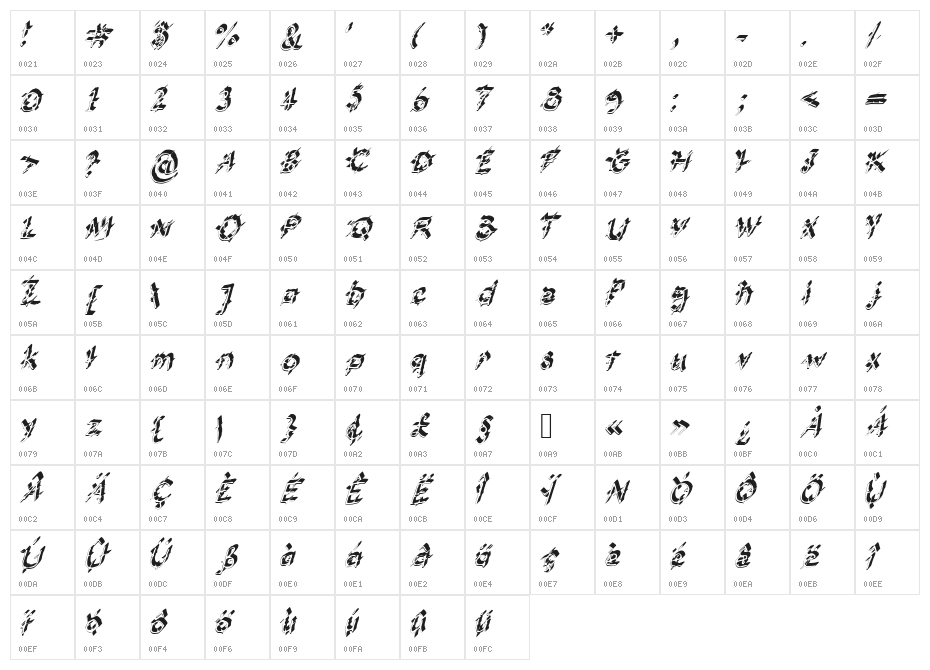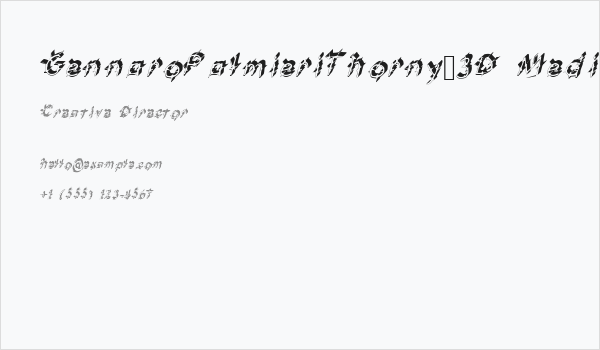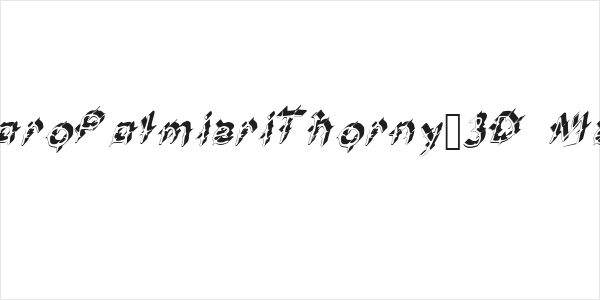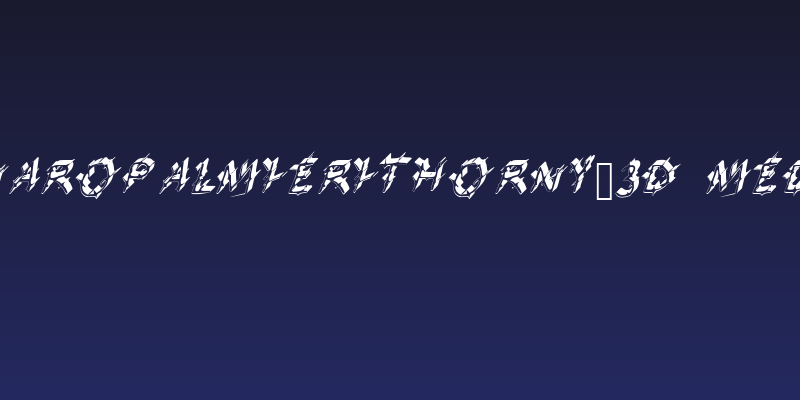
GennaroPalmieriThorny_3D Medium Font
GennaroPalmieriThorny_3D Medium Description
This font features a bold and dynamic 3D effect, with each character appearing as if it's emerging from the page. The design incorporates sharp, thorn-like edges that give it a distinctive, edgy appearance. The letters are intricately detailed, with a mix of solid and hollow spaces creating a striking visual contrast. This font's unique style makes it stand out, perfect for projects that require a bold statement. The characters maintain a consistent height and width, ensuring readability despite their complex design.
| Proposed Projects | Ideal for eye-catching posters, album covers, video game titles, and branding that requires a bold, edgy look. |